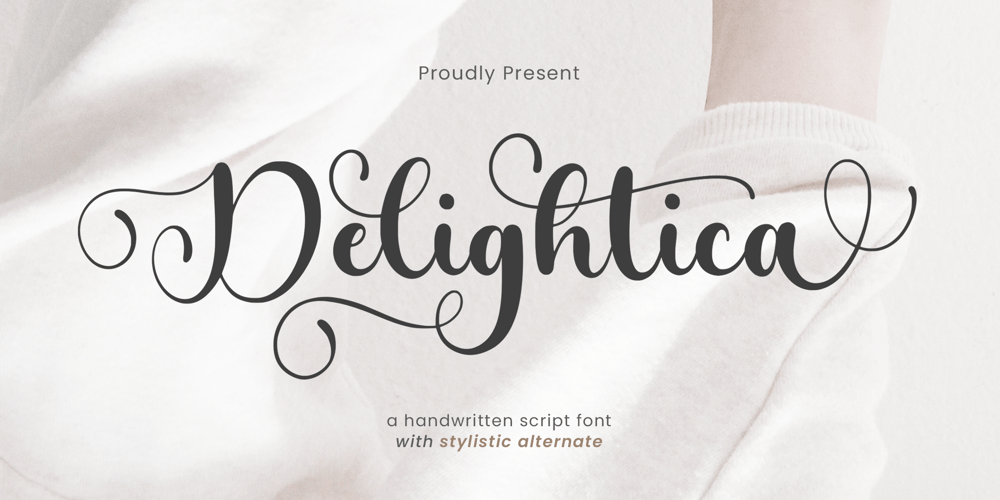
Delightica Font Family was designed by Wara Sigit Tri Pamungkas and published by Timurtype. Delightica contains 1 styles and family package options. Introducing by Timur typeProudly Present, Delightica A Handwritten FontDelightica is perfect for product packaging, branding project, megazine, social media, wedding, or just used to express words above the background.Delightica also multilingual support.Enjoy the font.Thank you!